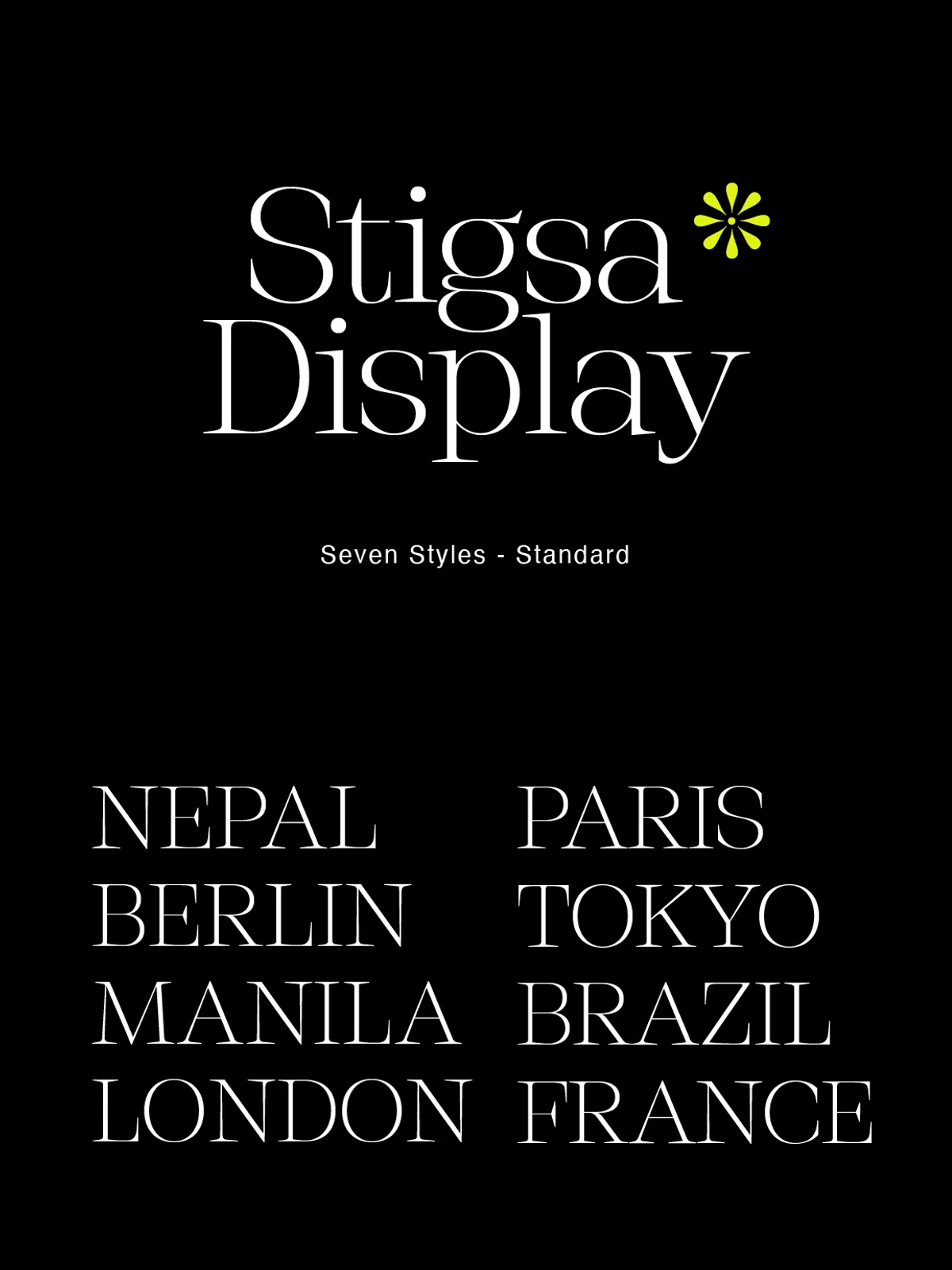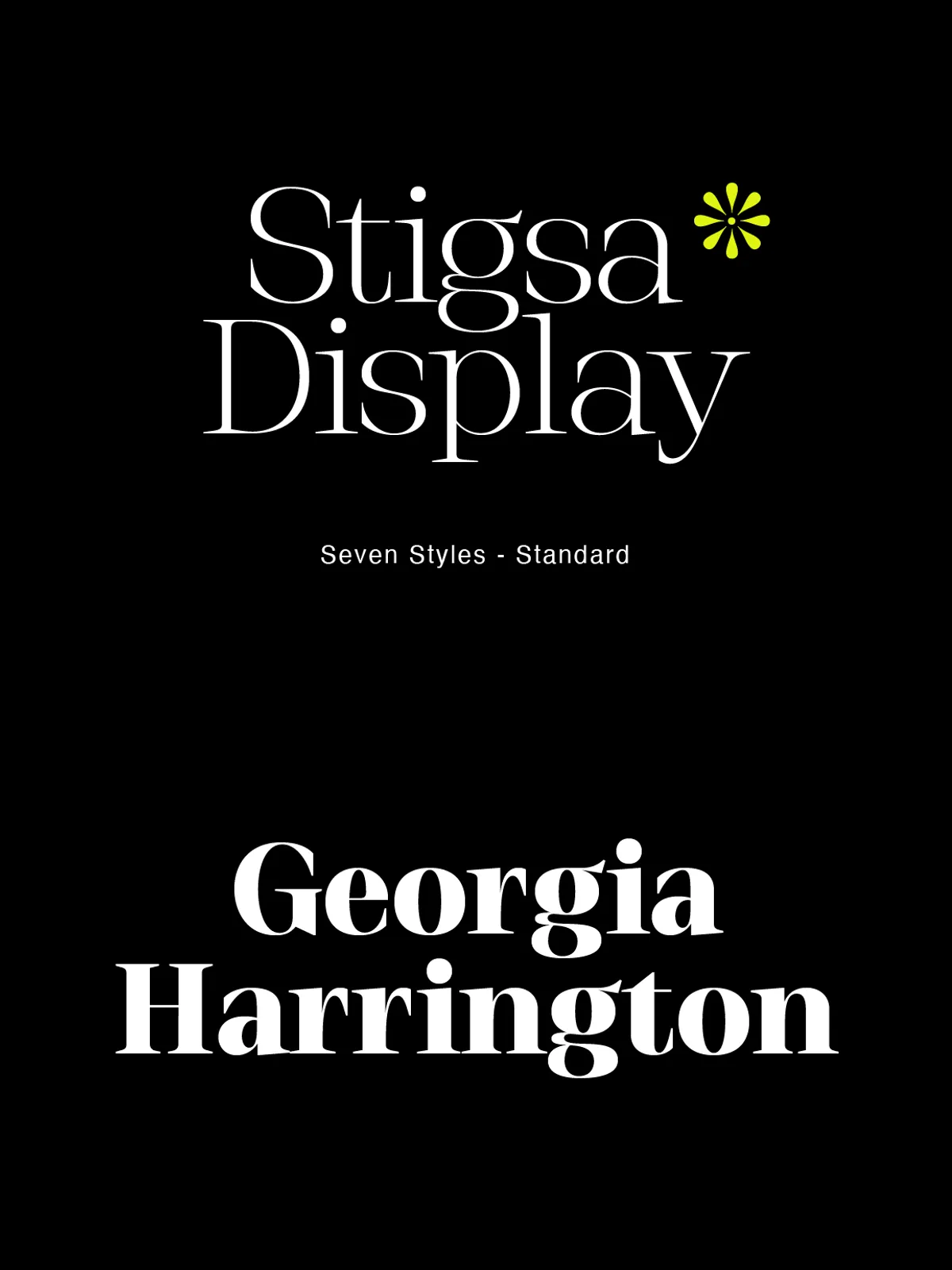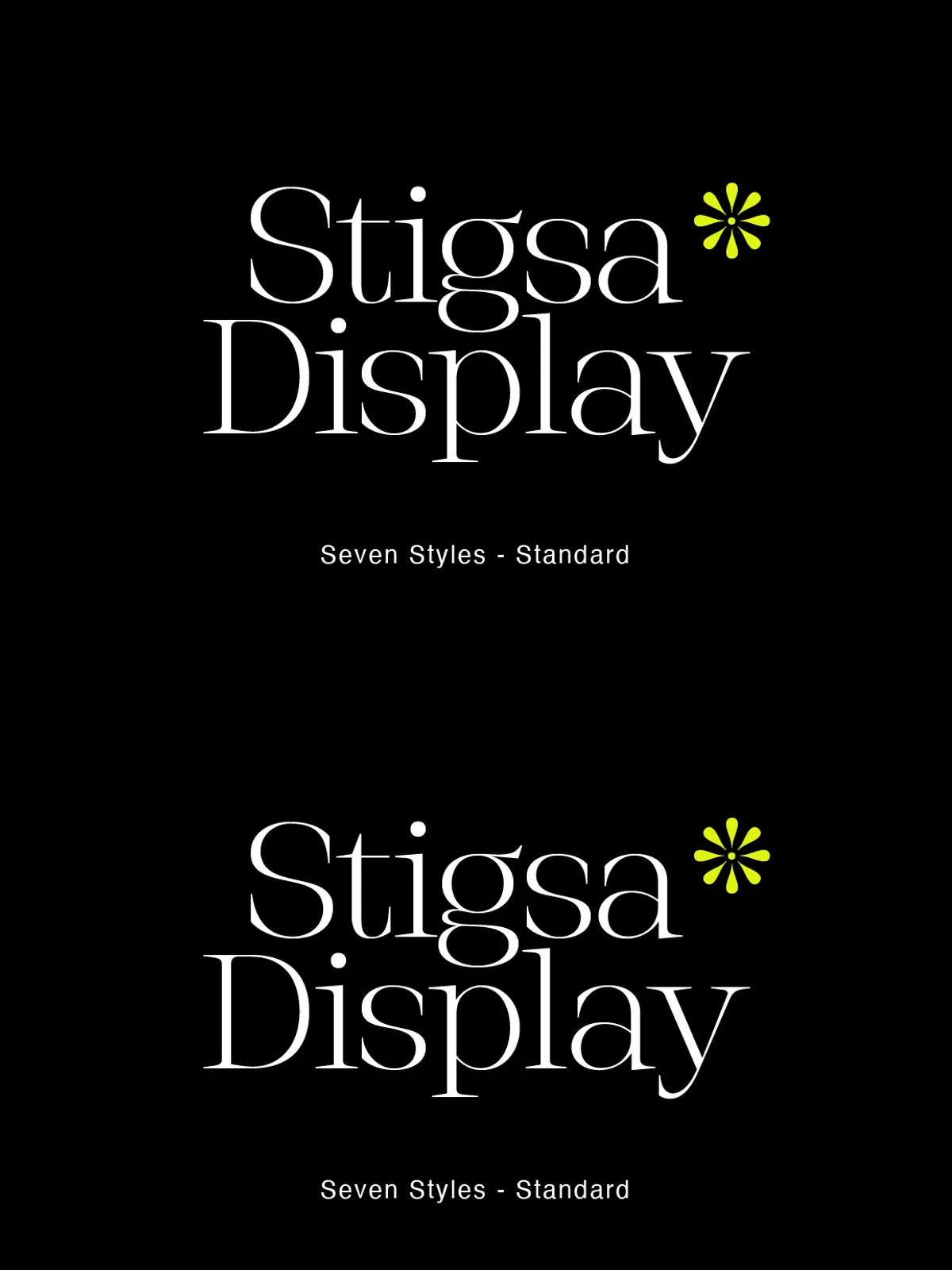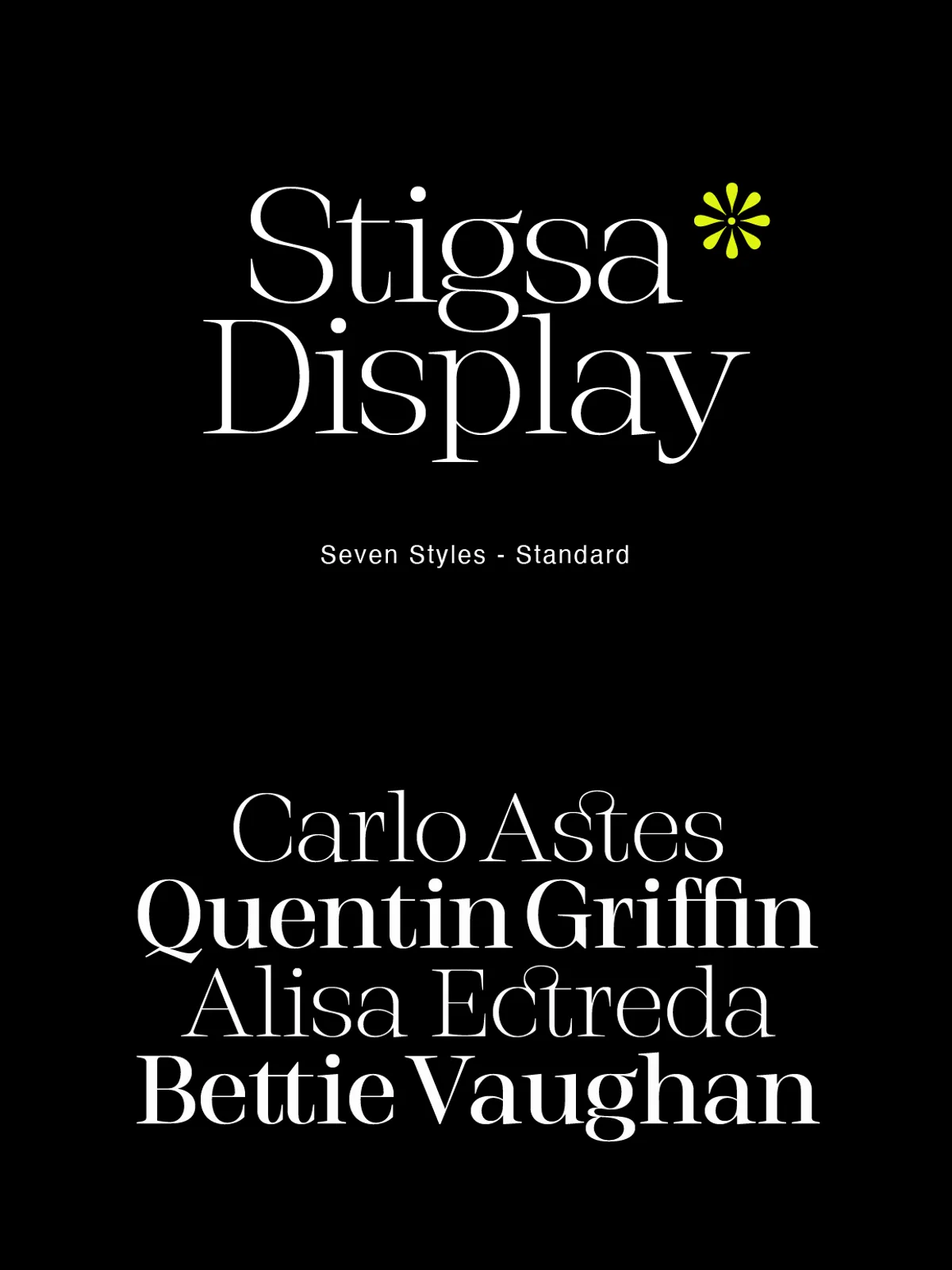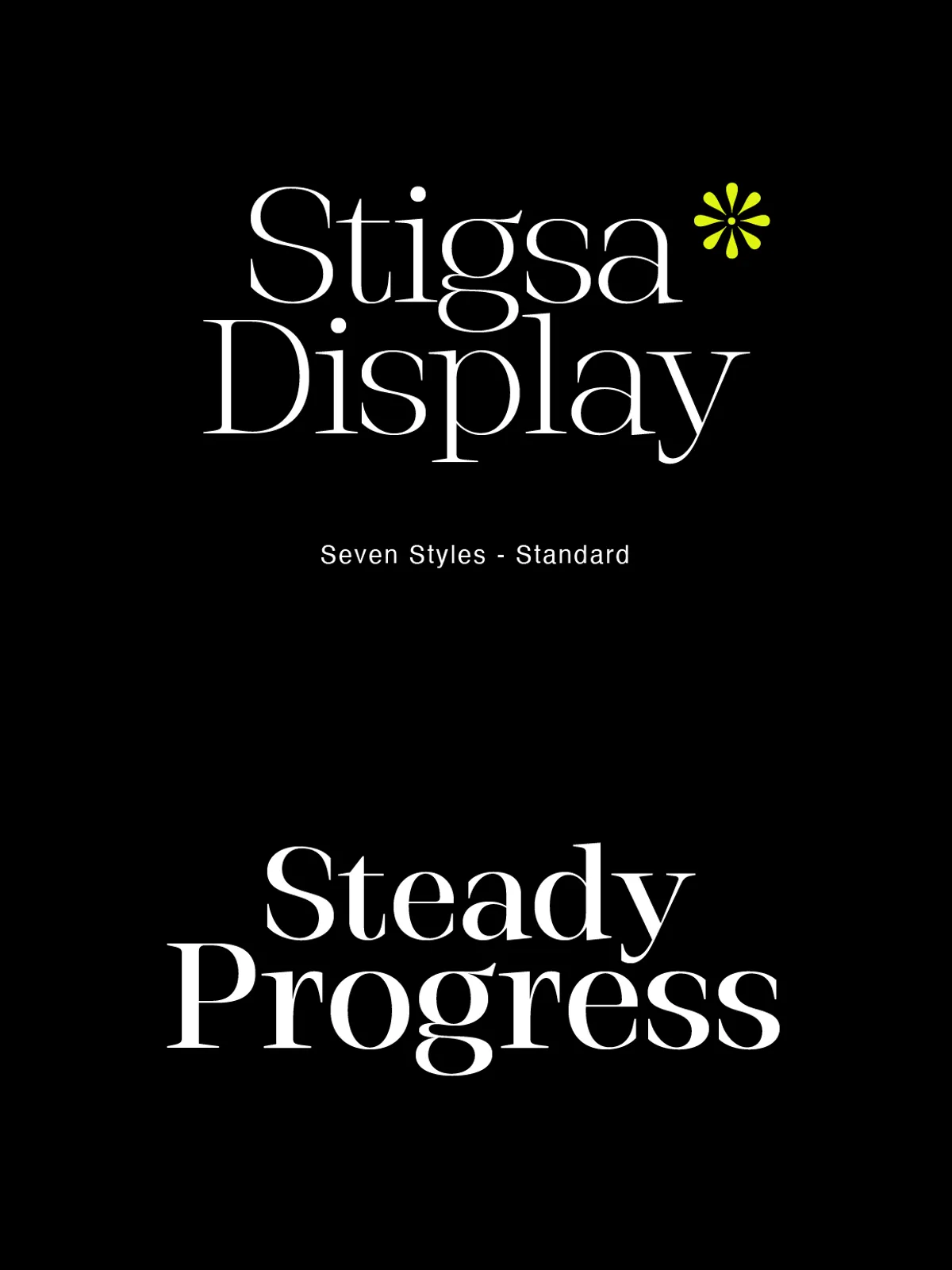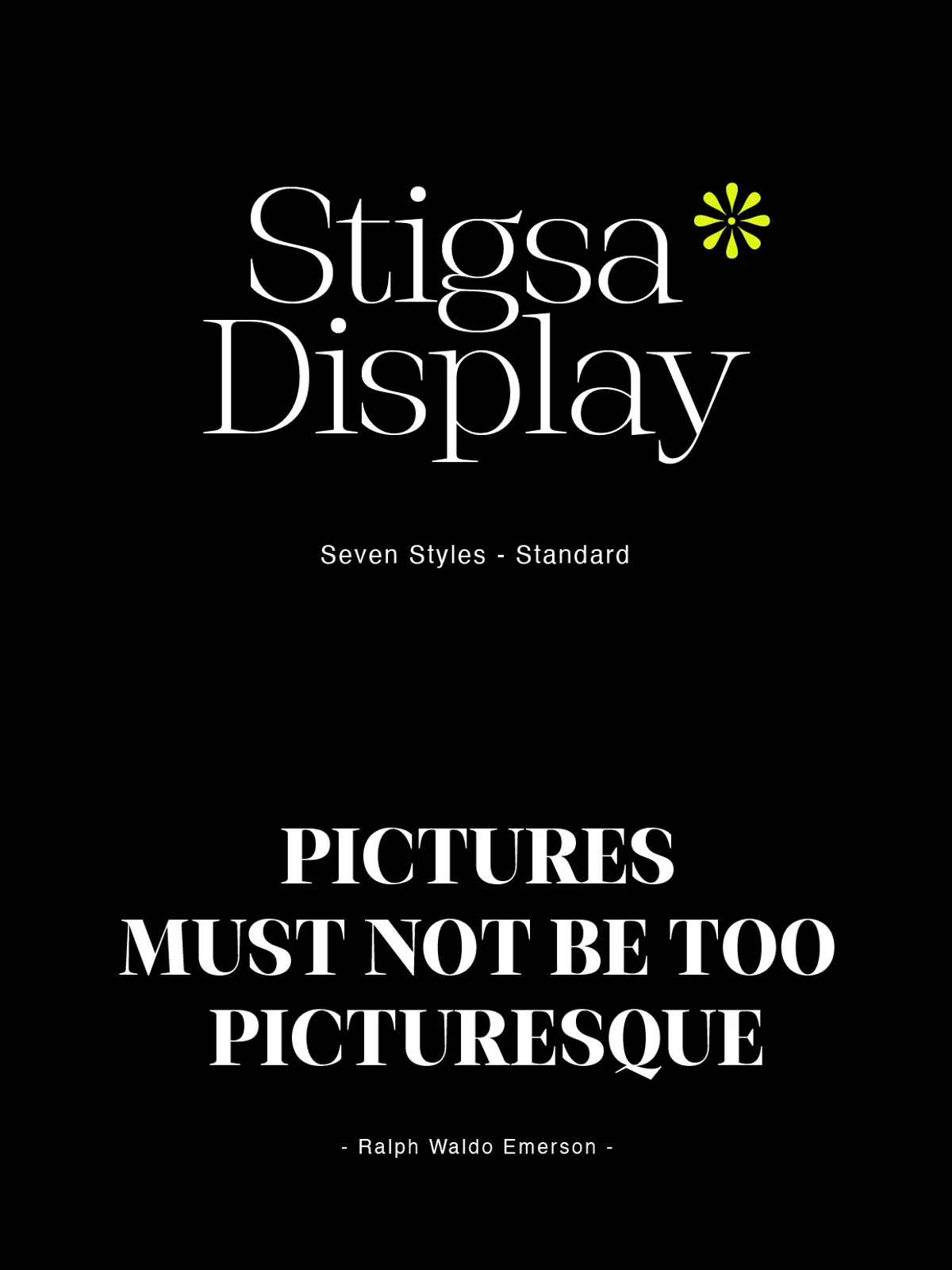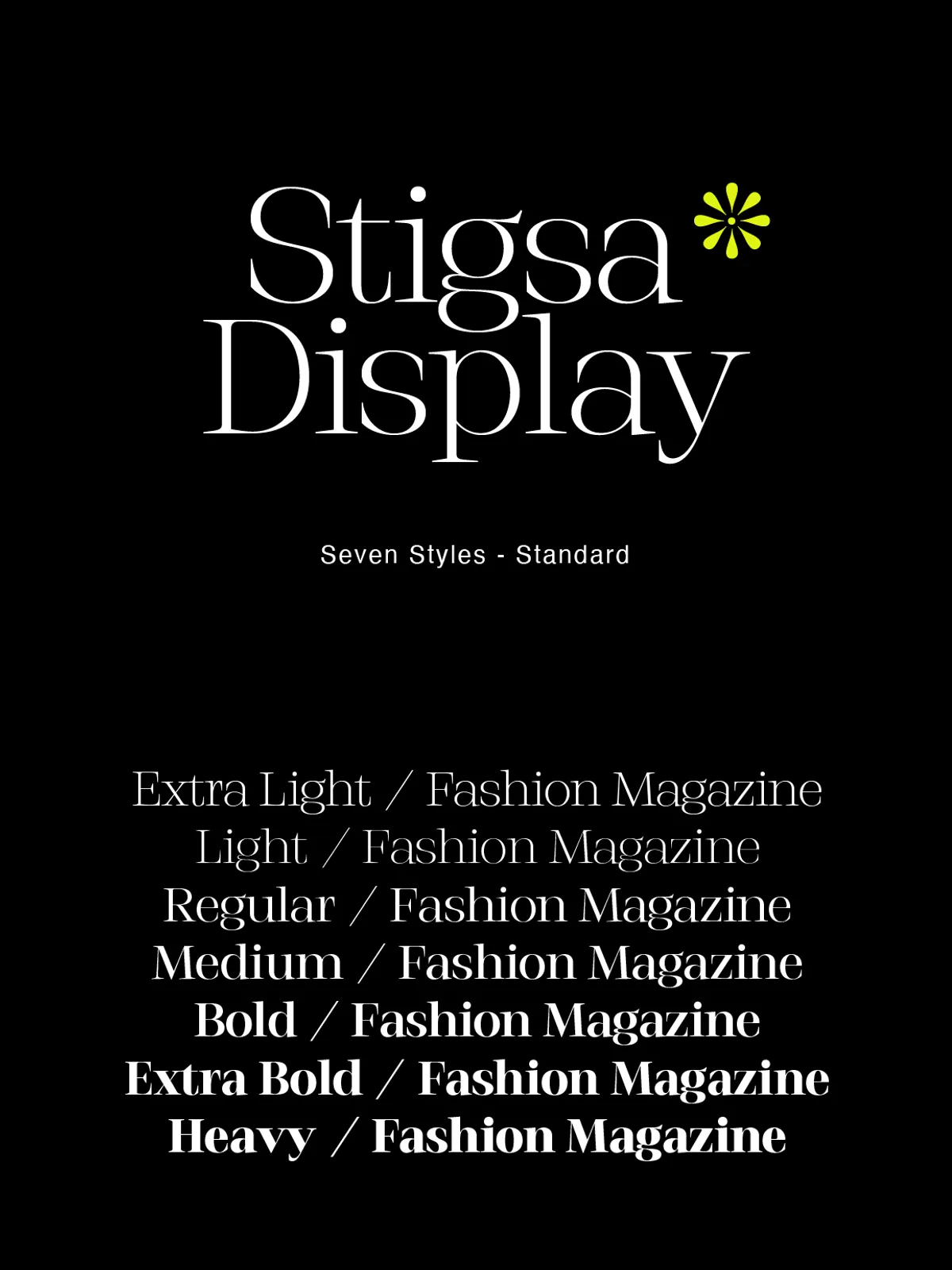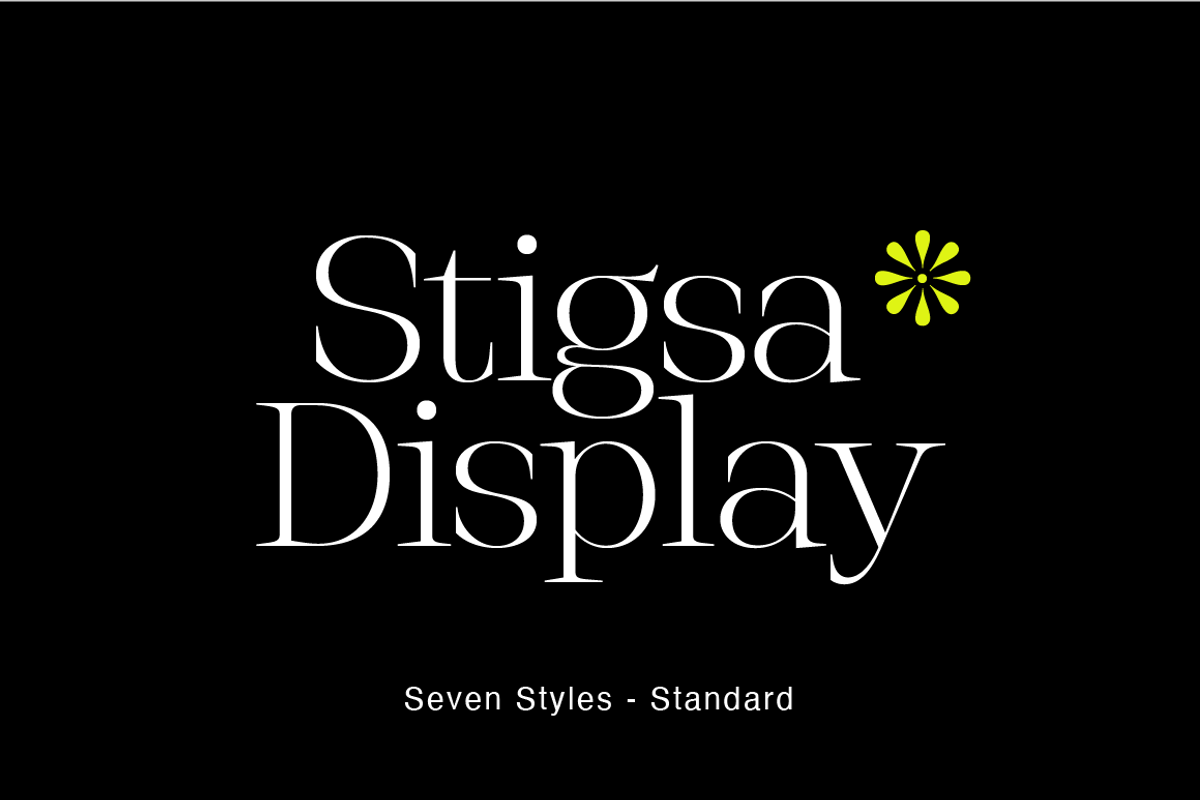
Meet Stigsa Standard — a striking display typeface forged in the fire of transitional design traditions and sharpened by modern precision. With a pronounced vertical stress and delicate yet assertive serifs, this typeface cuts through visual noise with confidence, clarity, and undeniable charisma.
Designed for impact, Stigsa Standard thrives in large text sizes and medium-scale applications — where every stroke commands attention. Whether you’re crafting a bold brand identity, designing a magazine cover, or building a poster that stops people in their tracks, Stigsa Standard delivers the kind of presence that lingers long after the first glance.
Power in Precision: 7 Fonts, 1143 Glyphs, Infinite Possibilities
The Stigsa Display family isn’t just a single font — it’s a complete typographic arsenal. With 7 distinct weights (ranging from light to heavy), you gain unmatched control over hierarchy, tone, and rhythm across your layout.
Each font in the family boasts an expansive 1,143 glyphs, including:
- Complete Latin character sets (uppercase and lowercase)
- Extended punctuation and special symbols
- Full support for small caps, oldstyle figures, and tabular figures
- Rich ligature sets for smoother, more professional typography
- Case-sensitive alternates and stylistic variants
- Fractional characters (e.g., ½, ¾) for elegant number presentation
- Advanced OpenType features for seamless integration into professional workflows
This isn’t just a font — it’s a typographic ecosystem designed to handle the most demanding creative tasks with elegance and precision.
Master the Craft: Advanced OpenType Features for Pro-Level Design
Stigsa Standard is engineered with power users in mind. Thanks to its robust OpenType feature support, you can instantly elevate any text with professional typographic refinements — all without a single manual adjustment.
Key OpenType Features Include:
- Small Caps – Perfect for corporate branding, headlines, and section titles.
- Oldstyle Figures – Ideal for elegant body text and timeless typography.
- Tabular Figures – Essential for financial spreadsheets, price lists, and aligned text.
- Ligatures – Automatically resolve common character pairs (e.g., “fi”, “fl”) for smoother flow.
- Fractions and Superscripts – Enhance readability in recipe guides, academic content, and product specs.
- Extended Language Support – Full compatibility with Western European, Central European, and multilingual layouts.
No more manual kerning or font switching. Stigsa Standard handles the complexity behind the scenes so you can focus on creativity.
Where Stigsa Standard Shines: High-Impact Design Applications
This high-contrast typeface isn’t for every project — but when it’s right, it’s perfect. Use Stigsa Standard where boldness, character, and typographic finesse matter most:
• Branding & Identity Design
Create unforgettable logos, brand names, and corporate headers that stand out in crowded markets. The contrast between thick and thin strokes makes it instantly recognizable, even at small sizes.
• Editorial Front Pages & Magazine Covers
Command attention with a title that feels both timeless and contemporary. Stigsa Standard’s balance of elegance and strength makes it ideal for news, lifestyle, and art magazines.
• Event Posters & Advertising Campaigns
Turn heads with bold, legible headlines that communicate urgency and style — from music festivals to film premieres.
• Website Headers & Hero Sections
Use Stigsa Standard in web design (via web-safe WOFF2 or EOT formats) to make your homepage’s first sentence unforgettable. Pair it with a neutral body font for maximum contrast and impact.